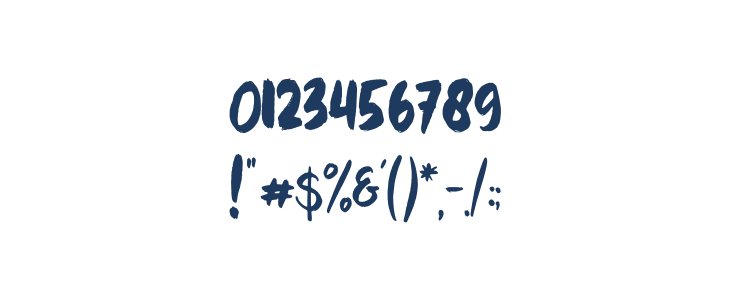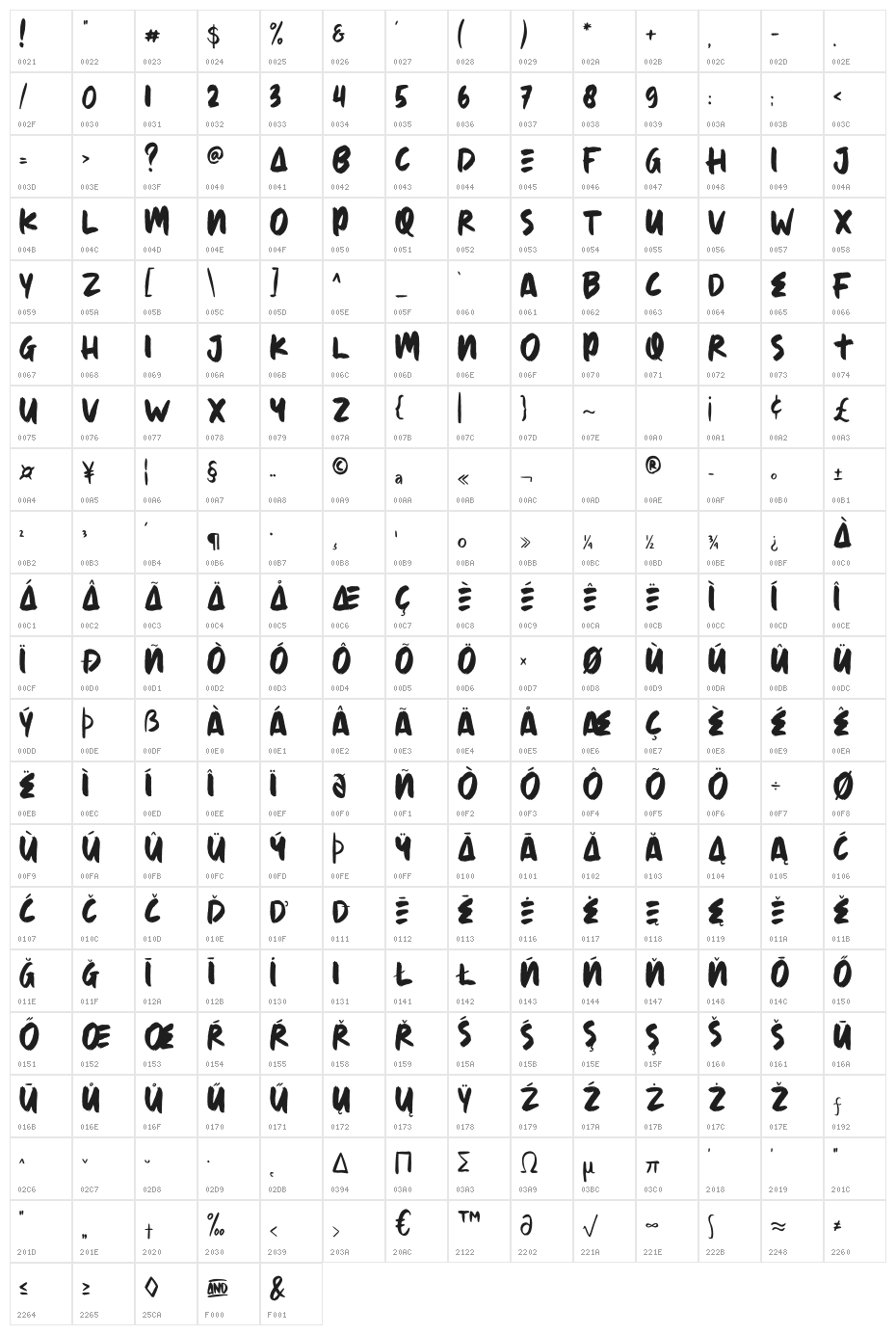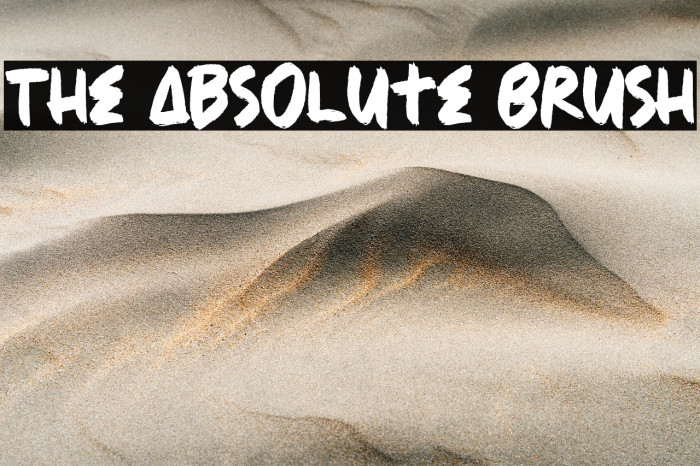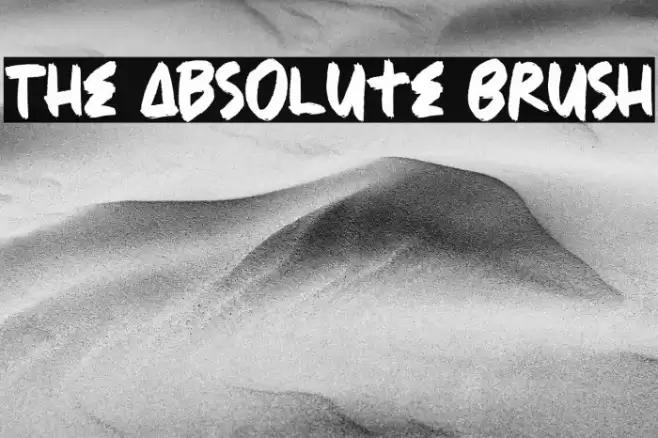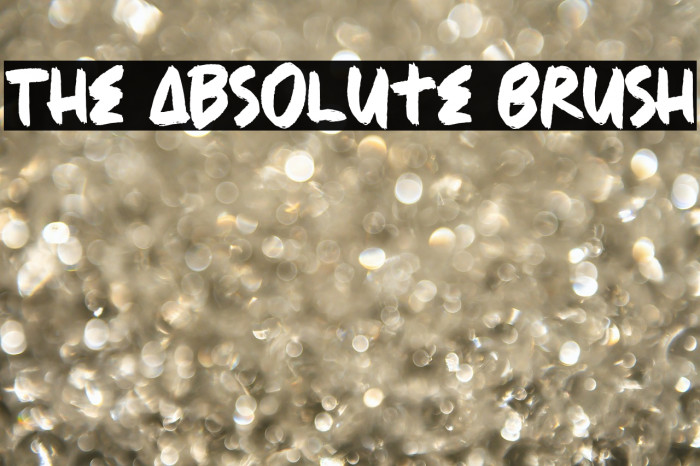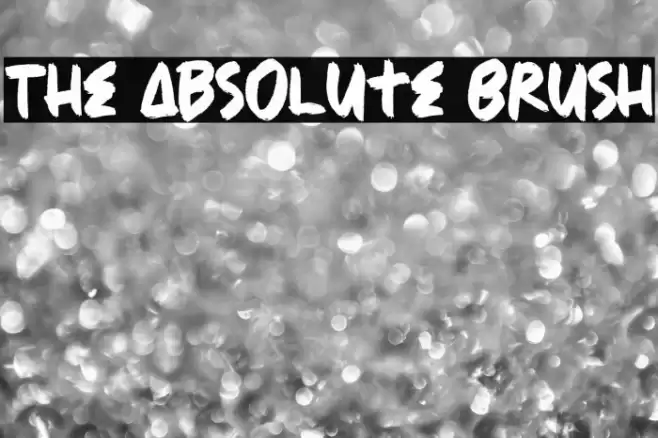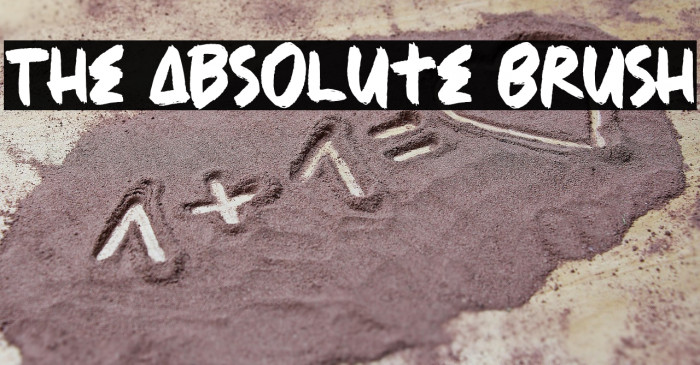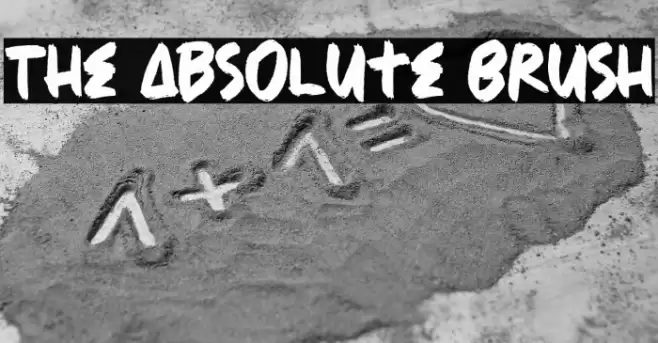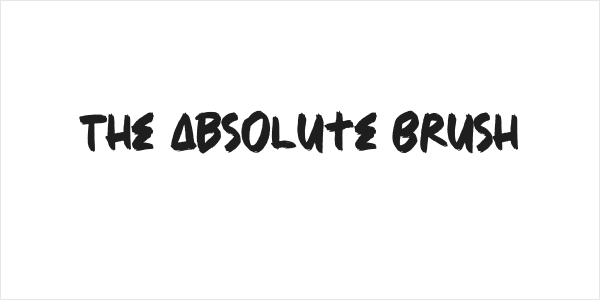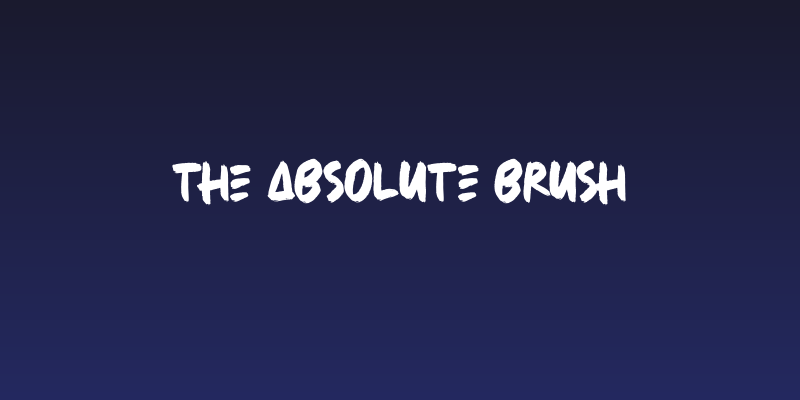
The Absolute Brush Font
The Absolute Brush Description
This font features a bold, expressive brush style that conveys a sense of energy and dynamism. The strokes are thick and uneven, giving it a hand-painted appearance that is both artistic and informal. The uppercase and lowercase letters maintain a consistent style, with a slight slant that adds to the casual feel. The numbers and special characters are equally bold, ensuring they stand out in any design. This font is perfect for projects that require a personal touch, such as posters, invitations, or branding materials. Its unique style makes it ideal for capturing attention and conveying a message with impact.
| Proposed Projects | Ideal for posters, invitations, branding materials, and any design needing a personal, artistic touch. |